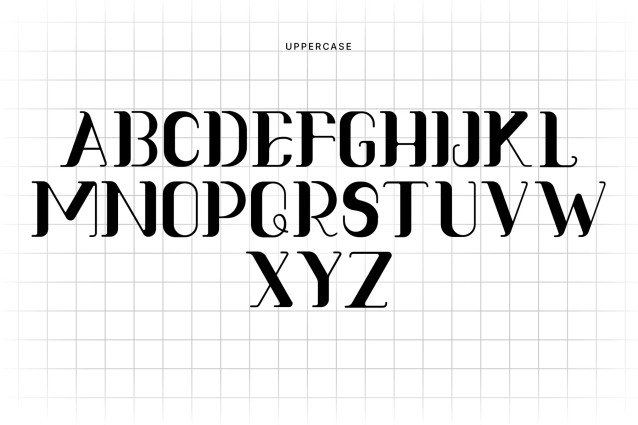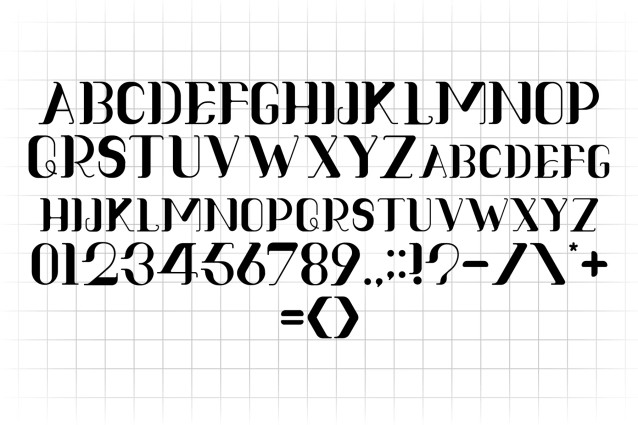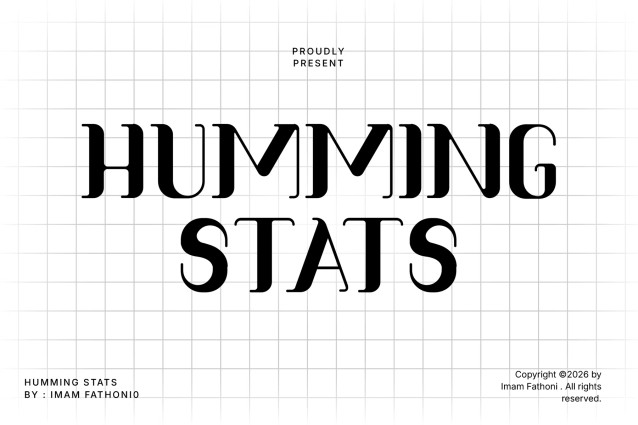
Humming Stats Font
HUMMING STATS – Modern Editorial Display Serif
Establish avant-garde editorial authority, high-fashion poise, and artistic typographic rhythm with HUMMING STATS! This modern display serif font pairs thick high-contrast stems with ultra-thin hairline accents, flat horizontal serifs, and unexpected open stencil breaks. Its unique architectural character turns simple titles into commanding, gallery-worthy visual statements.
Ideal for high-end fashion magazine mastheads, luxury boutique logos, editorial book covers, art gallery signage, cosmetics packaging, and elevated web headers!